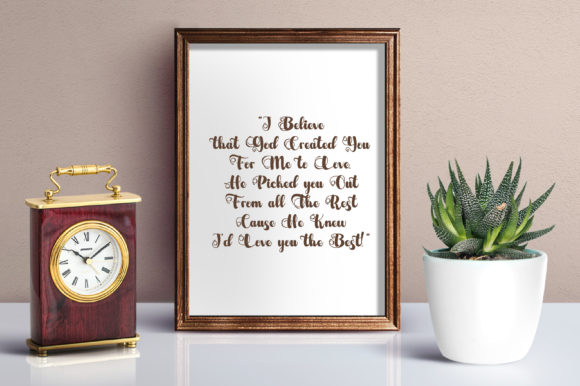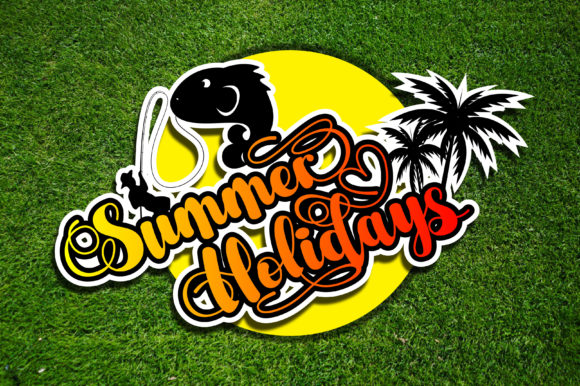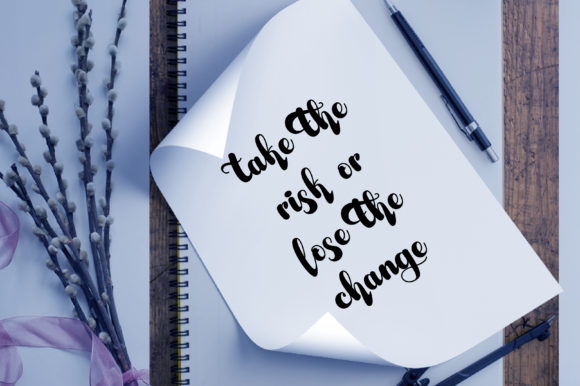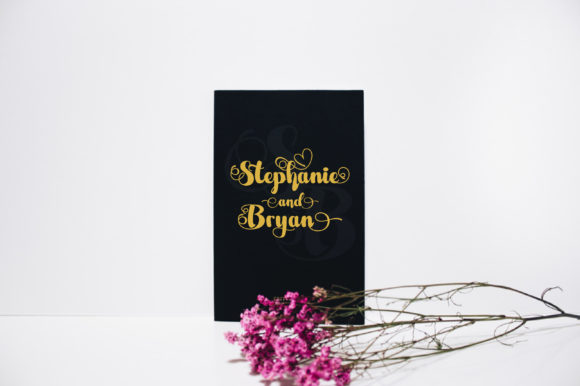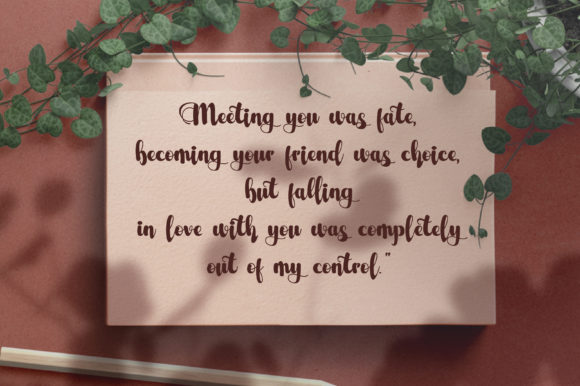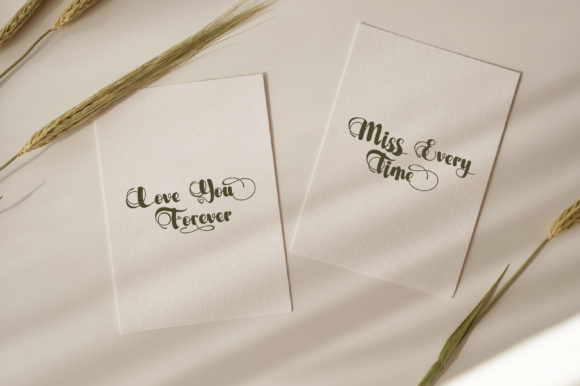
Introducing Dealova Font: The Ultimate Cursive Script for Stunning Designs
Are you a designer or crafter looking for a font that exudes elegance and sophistication? Look no further than Dealova Font, a beautiful cursive script font that’s sure to take your designs to the next level. In this article, we’ll dive into the features and benefits of Dealova Font, and explore how you can use it to create gorgeous designs that will leave a lasting impression.
What is Dealova Font?
Dealova Font is a stunning cursive script font that’s perfect for designers and crafters who want to add a touch of elegance to their work. This font is designed to be highly versatile, making it suitable for a wide range of projects, from wedding invitations and branding materials to social media graphics and digital art.
Key Features of Dealova Font
So, what makes Dealova Font so special? Here are just a few of its key features:
- PUA Encoding: Dealova Font is PUA (Private Use Area) encoded, which means that you can access all of the glyphs and swashes with ease. This makes it simple to create beautiful, intricate designs that will set your work apart.
- Cursive and Chic: Dealova Font is a cursive script font that’s both elegant and chic. Its flowing lines and curves make it perfect for creating designs that are sophisticated and eye-catching.
- Highly Versatile: Whether you’re working on a wedding invitation, a branding project, or a social media graphic, Dealova Font is the perfect choice. Its versatility makes it suitable for a wide range of projects and applications.
Benefits of Using Dealova Font
So, why should you choose Dealova Font for your next design project? Here are just a few of the benefits of using this stunning font:
- Elegance and Sophistication: Dealova Font adds a touch of elegance and sophistication to any design. Its cursive lines and curves make it perfect for creating designs that are refined and eye-catching.
- Easy to Use: With PUA encoding, Dealova Font is easy to use and access. You can easily switch between glyphs and swashes to create beautiful, intricate designs.
- Time-Saving: Dealova Font is designed to be highly versatile, which means that you can use it for a wide range of projects. This can save you time and effort, as you won’t need to search for a new font for each project.
How to Use Dealova Font
So, how can you use Dealova Font to create gorgeous designs? Here are a few tips and ideas to get you started:
- Wedding Invitations: Dealova Font is perfect for wedding invitations, as it adds a touch of elegance and sophistication to any design.
- Branding Materials: Use Dealova Font to create stunning branding materials, such as logos, business cards, and letterheads.
- Social Media Graphics: Dealova Font is perfect for social media graphics, as it adds a touch of elegance and sophistication to any design.
- Digital Art: Use Dealova Font to create stunning digital art, such as illustrations, paintings, and mixed media designs.
In conclusion, Dealova Font is a stunning cursive script font that’s perfect for designers and crafters who want to add a touch of elegance to their work. With its PUA encoding, cursive and chic design, and high versatility, Dealova Font is the perfect choice for a wide range of projects. Whether you’re working on a wedding invitation, a branding project, or a social media graphic, Dealova Font is sure to help you create gorgeous designs that will leave a lasting impression.